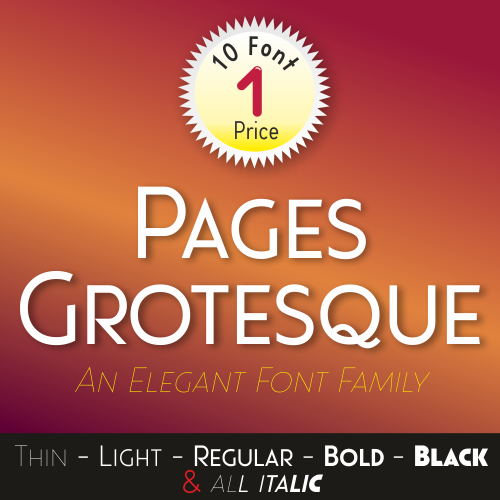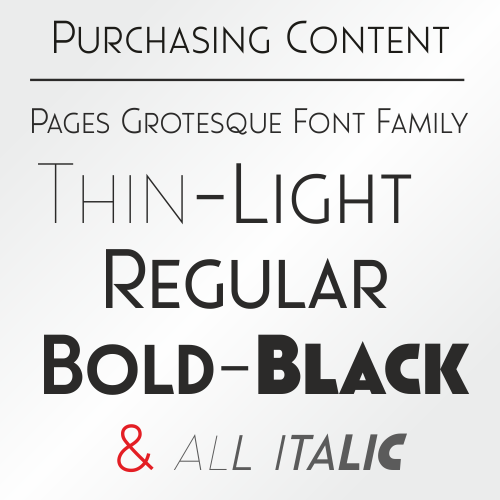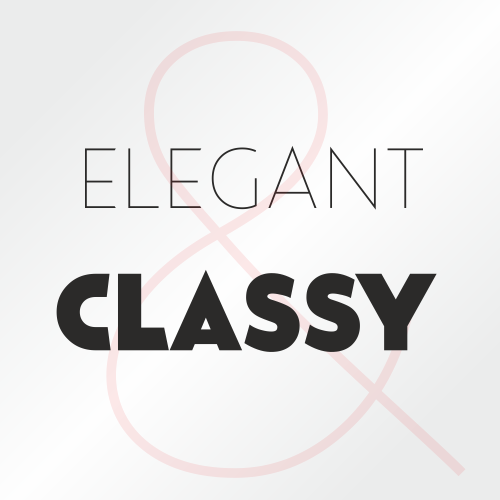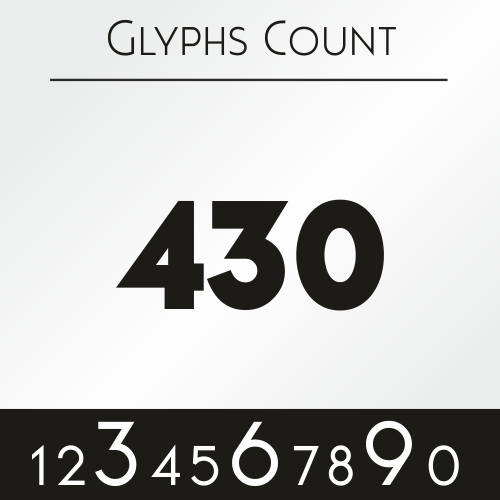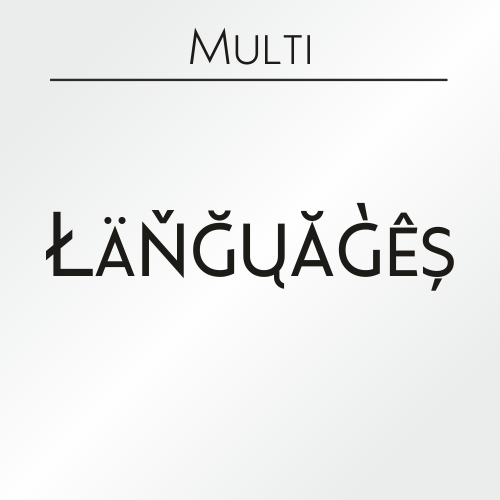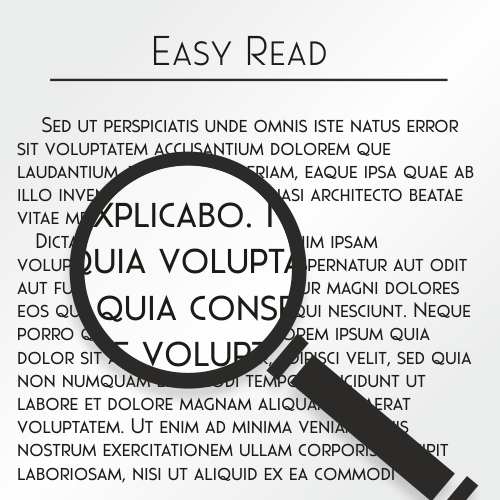
Family Name | Pages Grotesque font |
The Pages Grotesque font family, crafted by Mehmet Abacı from StudioTypo, is a harmonious blend of modernity and elegance. This sans-serif typeface is designed to be both functional and aesthetic, making it an ideal choice for diverse applications such as branding, editorial projects, and digital interfaces.